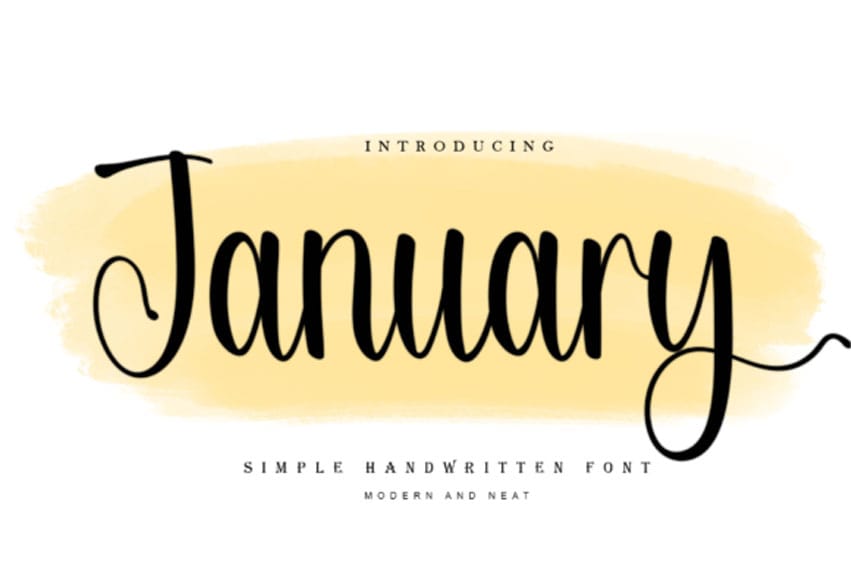
January Simple Font is a stylish handwritten font with a contemporary atmosphere and impeccable form, inspired by a timeless classic calligraphy.
Balanced and varied, this font was designed to enhance the beauty of your projects.